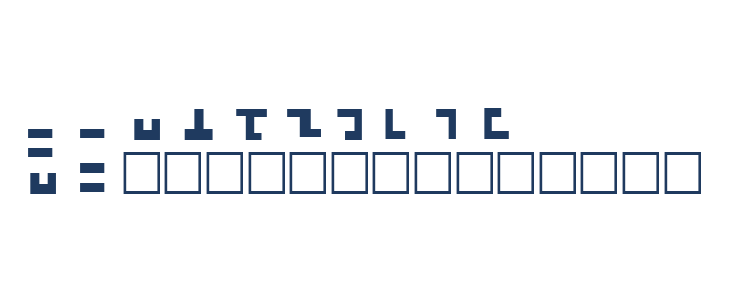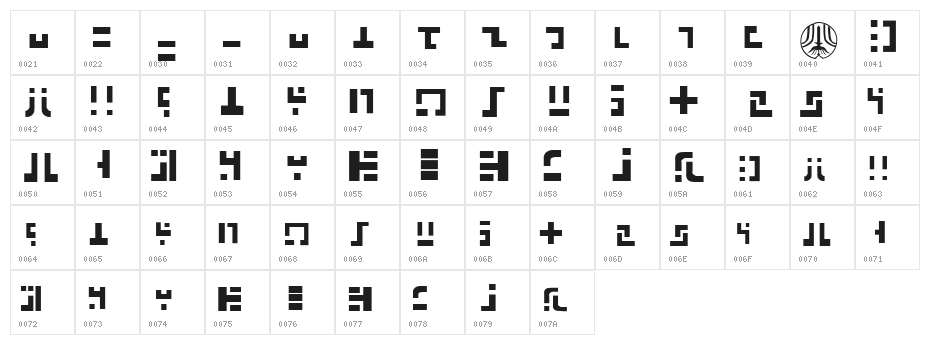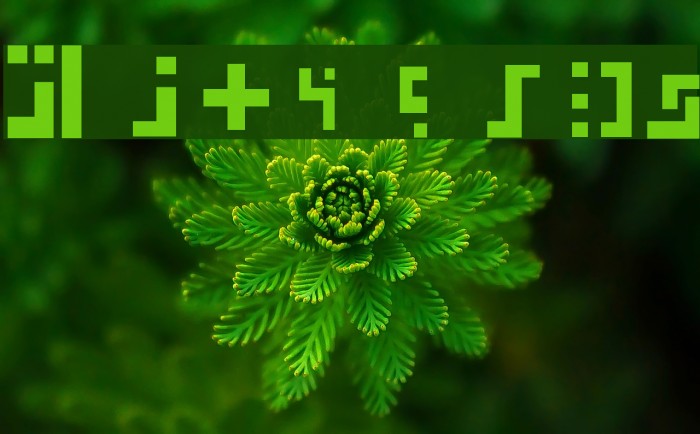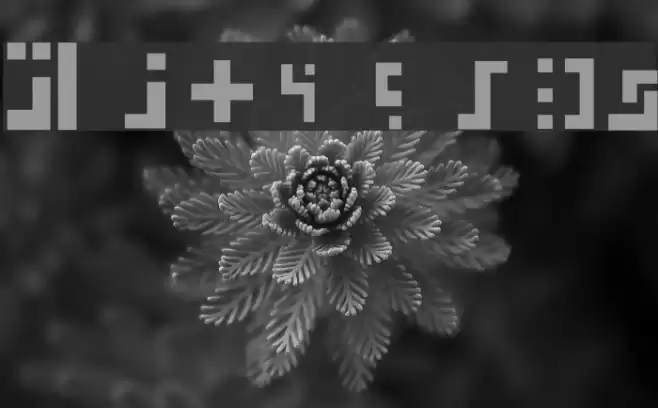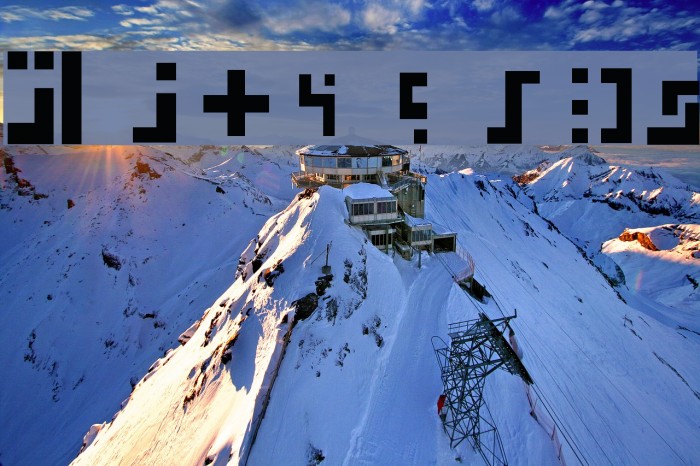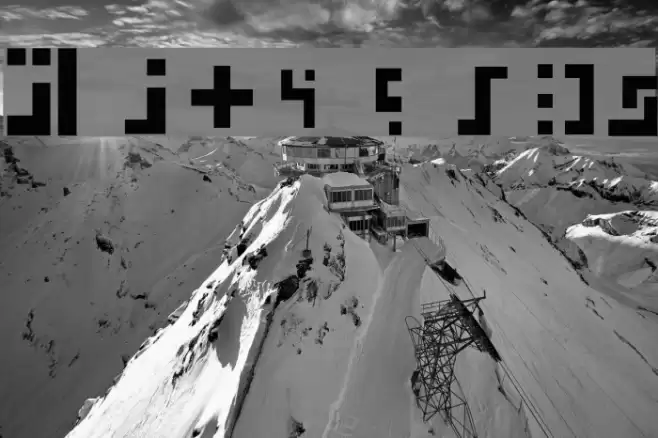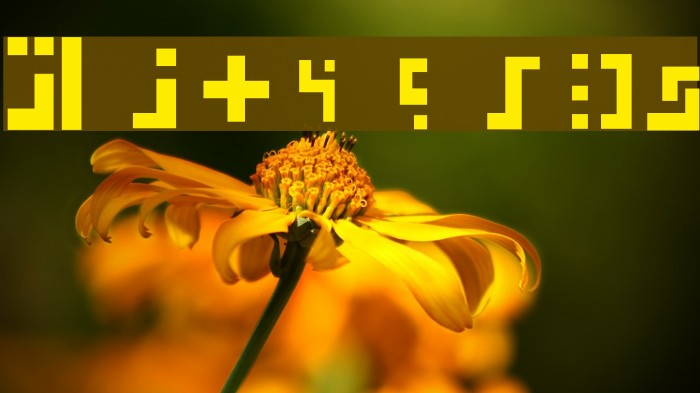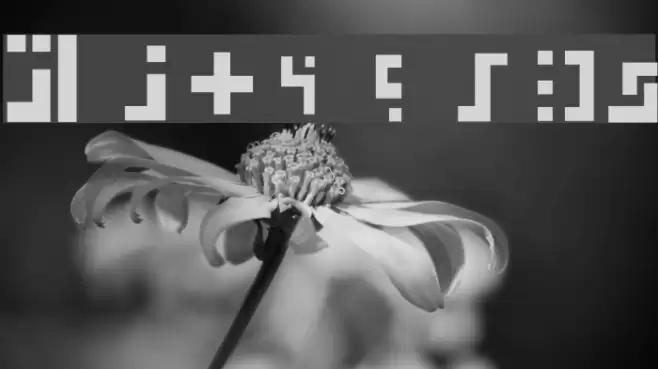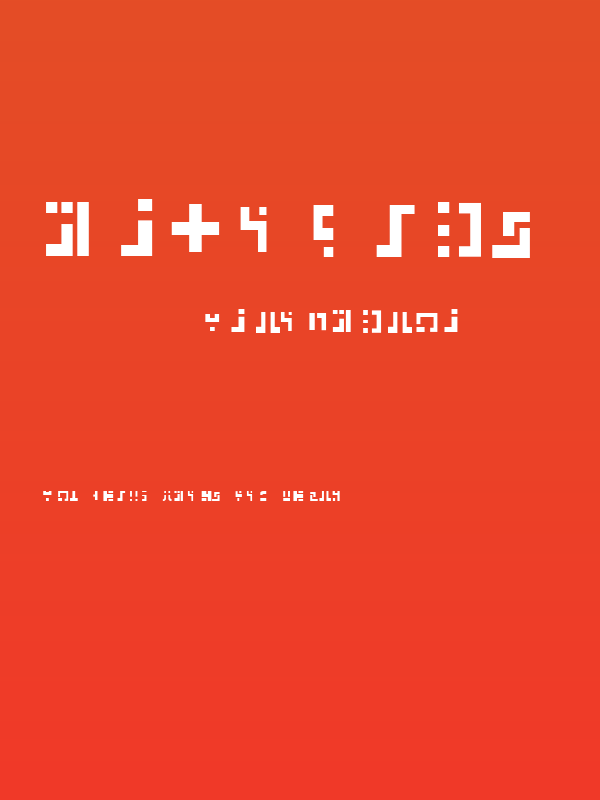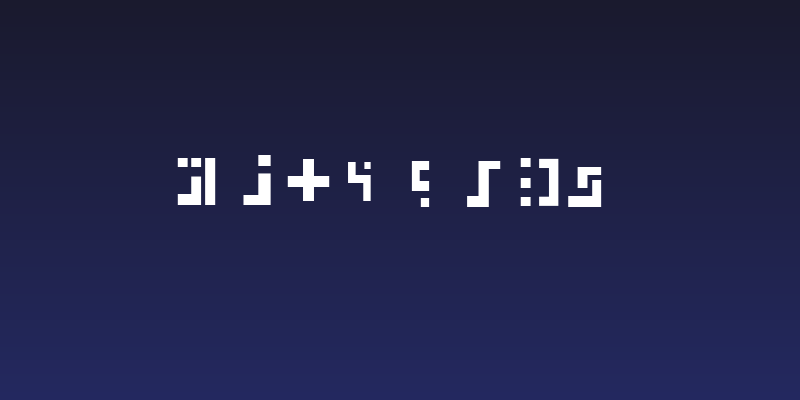
Rylodian Font
Rylodian Description
This font features a highly stylized, futuristic design with geometric shapes and sharp angles. Each character is constructed with a series of blocks and lines, creating a digital, almost alien-like appearance. The font lacks traditional curves, opting instead for a pixelated aesthetic that suggests a connection to technology or science fiction. Its unique style makes it stand out, though it may challenge readability in longer texts. The uniformity in stroke width across characters contributes to a cohesive look, while the spacing between characters is relatively tight, enhancing its compact feel.
| Proposed Projects | Ideal for sci-fi themed projects, video game interfaces, tech branding, or futuristic posters. |